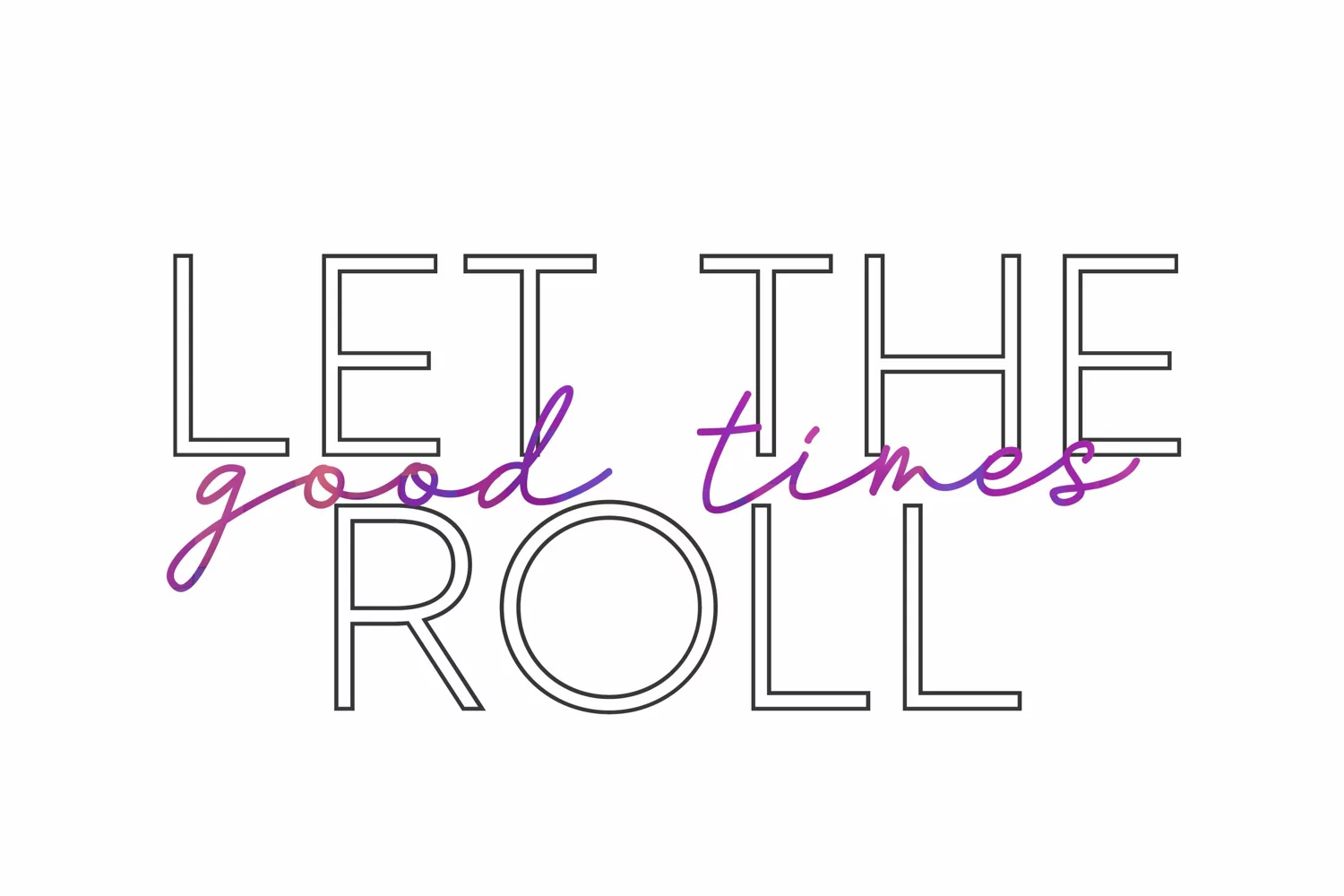
Single line Crystal Darling, a sketch sans and script font
Say hello to Crystal Darling Single line – a single line/sketch version of the magical layered sans and script font duo! This gorgeous font duo is perfect for engraving, sketch pen, foil quill, laser and more!
Use it for wedding invitations, social media posts, pretty logos and branding, beautiful quotes and more!
Crystal Darling Duo includes Crystal Darling Sans which is a unicase font and includes Uppercase letters, numbers and punctuation an Outline sans font as well a trendy handwritten Crystal Darling script font that pairs perfectly with it. Use each of them as a stand alone font or pair them up!